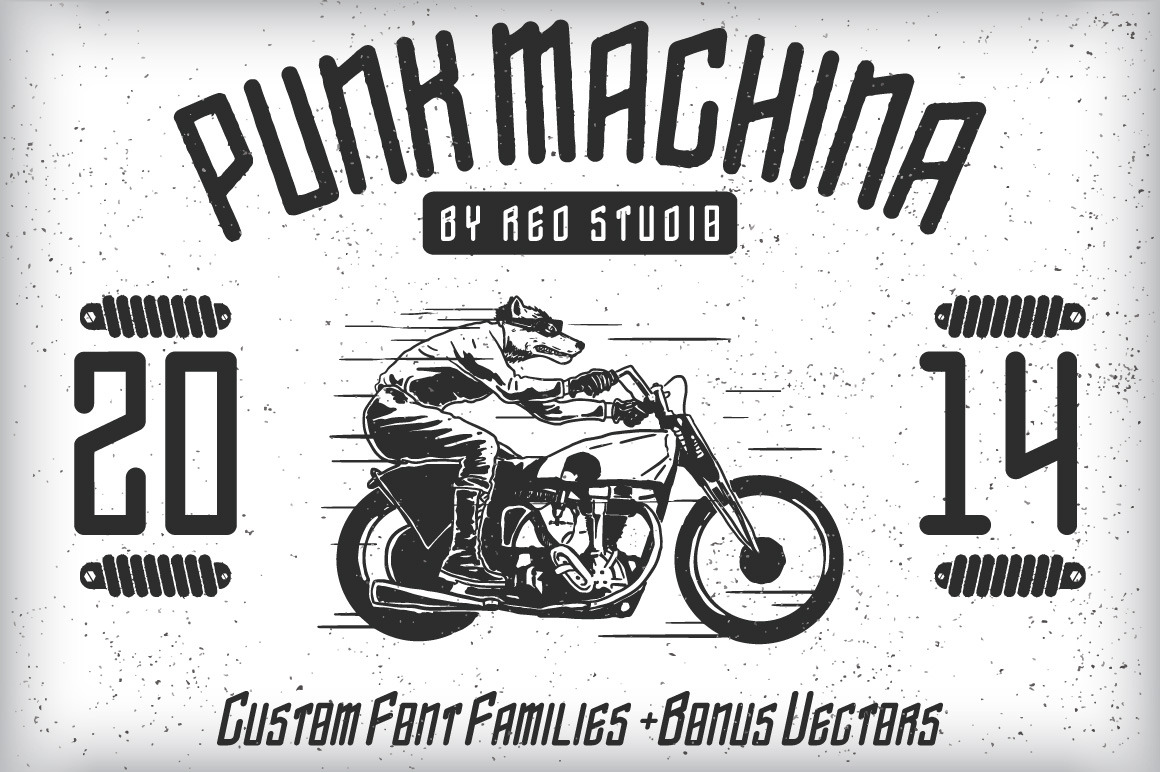
Punk Machina Typeface + Bonus
PUNK MACHINA is a custom typeface , it can be used in logos and graphic related to cars, bike, automotive, detroit, punk, hard core, music, 1940, 1950, 1960, vintage, retro, classic and old machines.